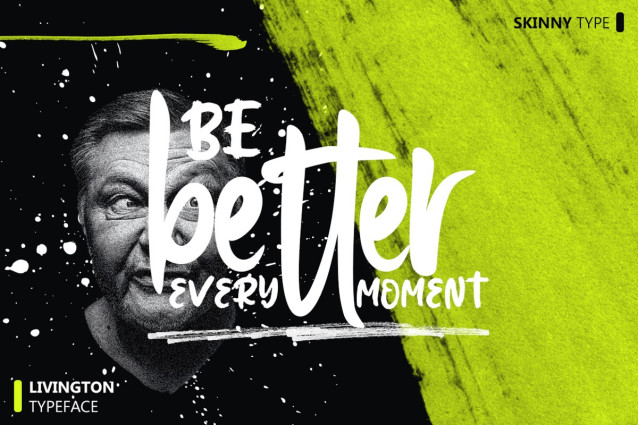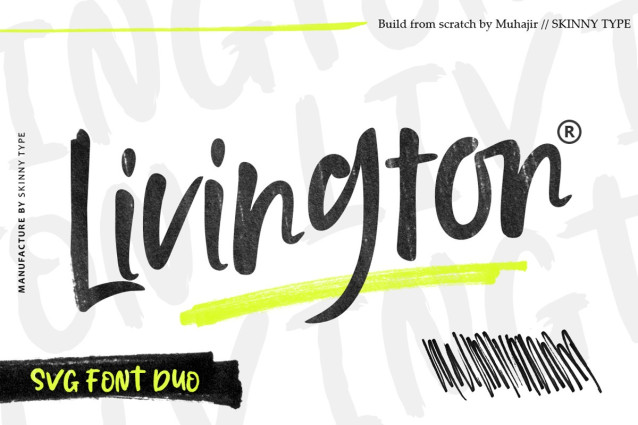
Livington Script Font
Livington Script Font is a handwritten SVG font that has the look and feel of a true hand drawing. The handwritten Livington font requires Photoshop CC 2017 or Illustrator CC 2018 (or later) to work, but the OTF Livington Script doesn’t require any special software and can be used on any computer and on any software.